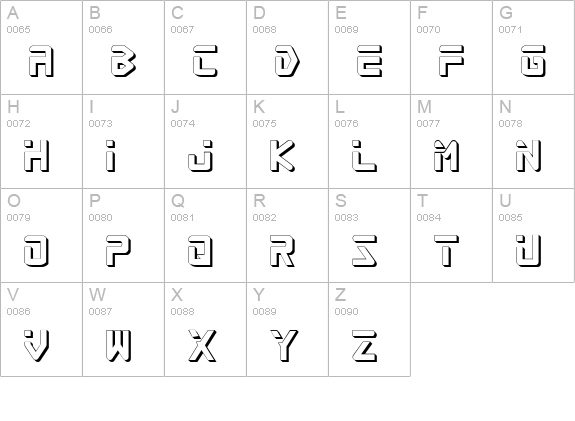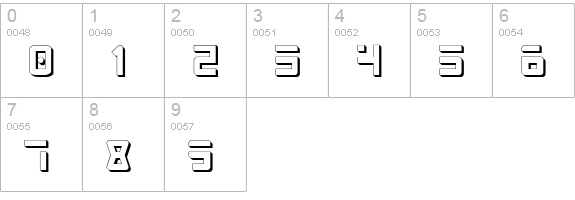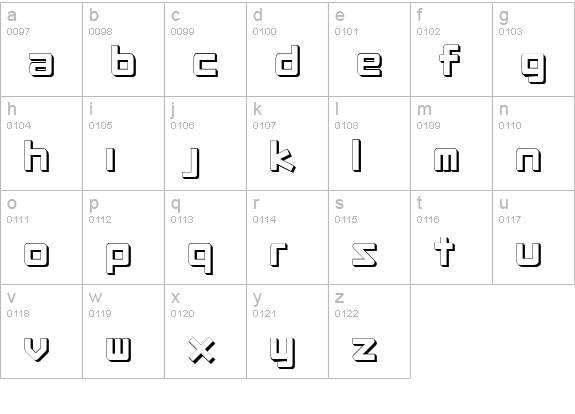
Procyon Shadow Font Details
Procyon Shadow font is a captivating and versatile typeface that exudes a sense of mystery and sophistication. Its unique shadow effect adds depth and drama to any text, making it perfect for a wide range of design projects, from branding to editorial layouts. This stylish font is not only visually striking but also highly readable, making it ideal for both display and body text. Its sleek lines and contemporary look give any design a modern edge, while its subtle shadow detail adds an extra layer of visual interest. Best of all, Procyon Shadow font is available for free download at FontsMarket.com, making it accessible to designers, creatives, and typophiles alike. Whether you're working on a professional project or a personal passion project, this font is sure to elevate your designs and make a lasting impression.